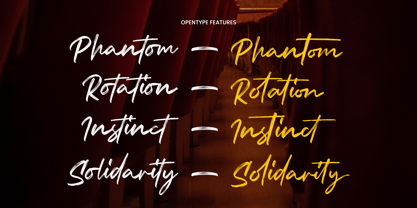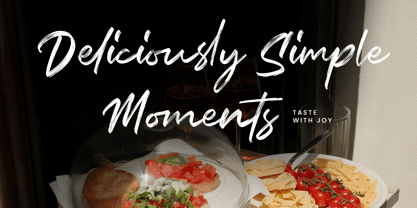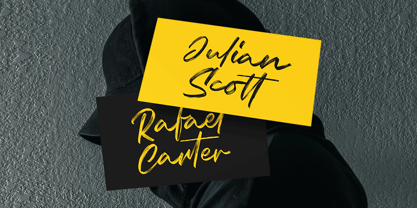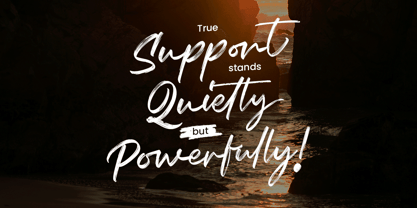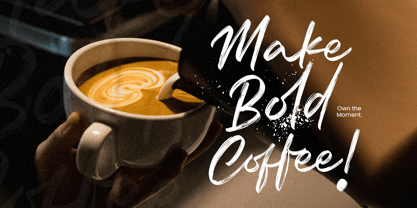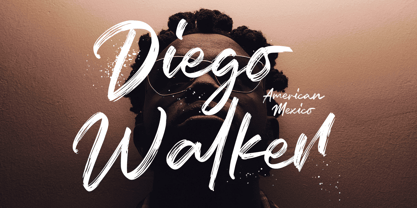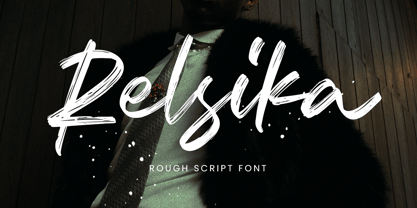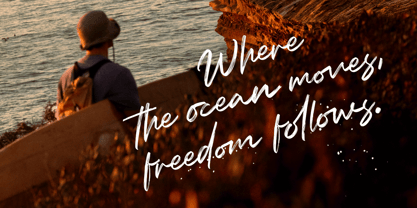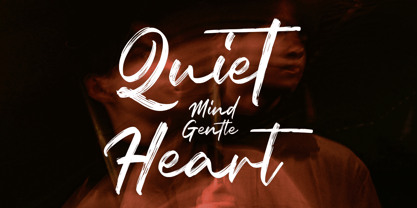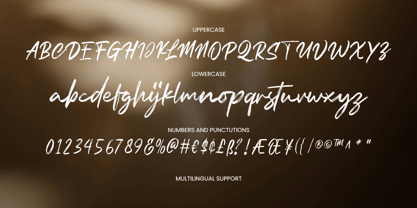
Relsika
by Arterfak Project
The Relsika Font Family was designed by Ahmad Ramzi Fahruddin and published by Arterfak Project. Relsika contains 1 styles. More about this family
Relsika is a rough script font that celebrates imperfection with expressive, brush-textured strokes. Inspired by natural handwriting, it feels organic, warm, and confidently human—giving your text a handcrafted personality without sacrificing readability. Equipped with alternates, multilingual support, and full glyph coverage, Relsika is perfect for branding, logos, quotes, packaging, and lifestyle designs. It keeps your words looking alive, authentic, and far away from the dreaded “copy-paste handwriting” look. Font features : - Uppercase - Lowercase - Numbers & symbols - Ligatures - Stylistic alternates - Multilingual support
Designers: Ahmad Ramzi Fahruddin
Foundry: Arterfak Project